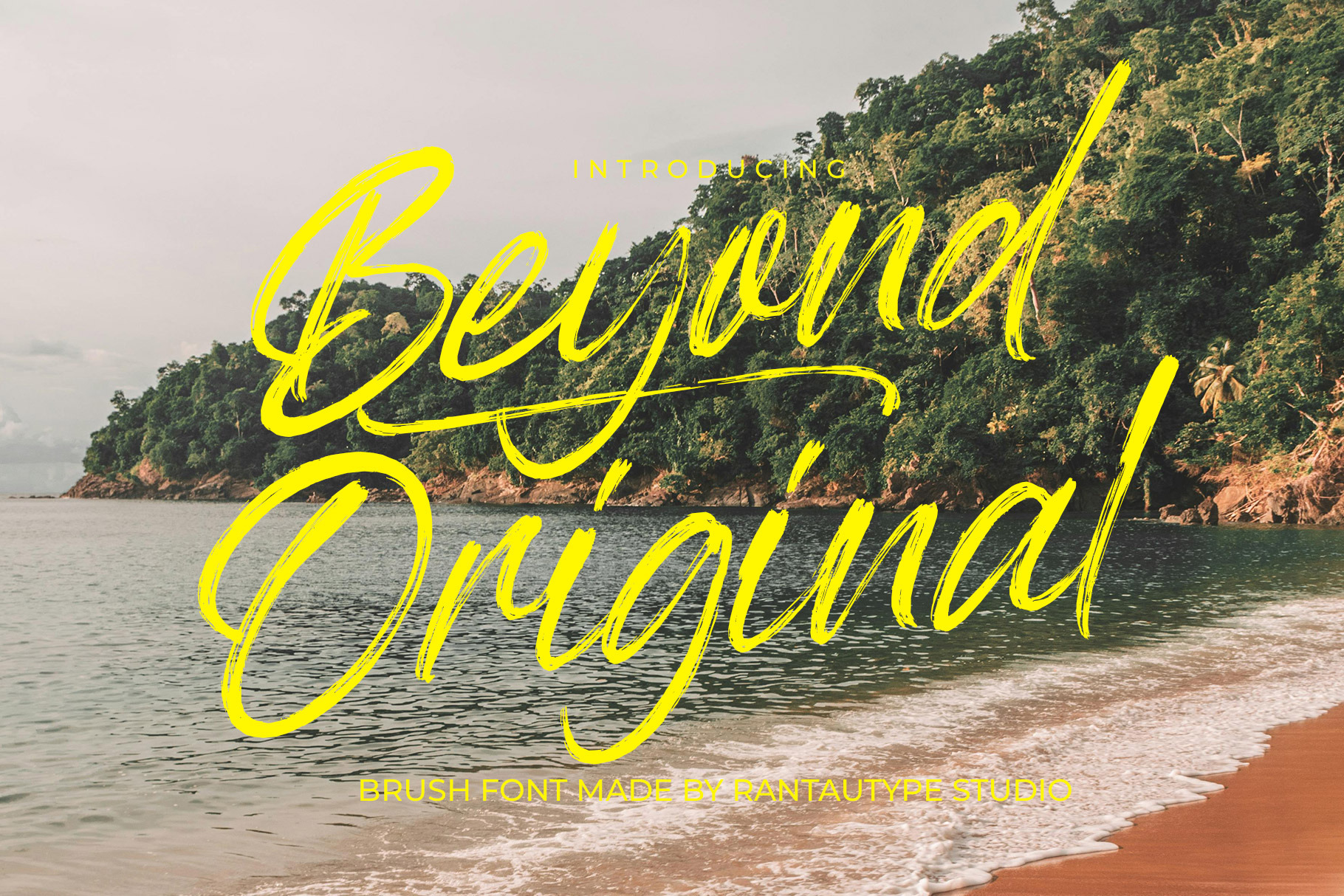
Beyond Original Modern Brush Font
Beyond Original is a expressive brush script font that captures the essence of creativity, freedom, and artistic confidence. Designed with dynamic hand-painted strokes, this typeface brings an authentic handcrafted feel that instantly adds personality and energy to any design.
Beyond Original s a perfectly choice for any creative endeavor, creating, modern, lifestyle design such as logotype, title, cover, branding, display and magazine, social media posts, advertisements, printed quotes, product packaging, corporate brand, product designs, labels, photography, watermarks, special events and any other project with urban touch.
Alternate and ligature